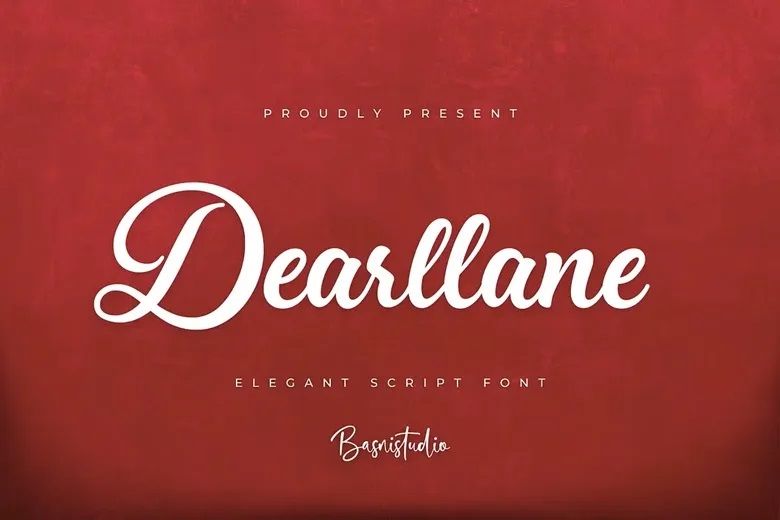
Dearllane Font
Dearllane is a calligraphy script font that gives a elegant, versatile taste to both branding and social media as well as invitations and packaging. It is ideal to be used as logos, quotes, on greeting cards, etc. Simulated using natural pen lines to make it natural. Plays nicely with the design world including all the big applications.
Dearllane Calligraphy Script Font